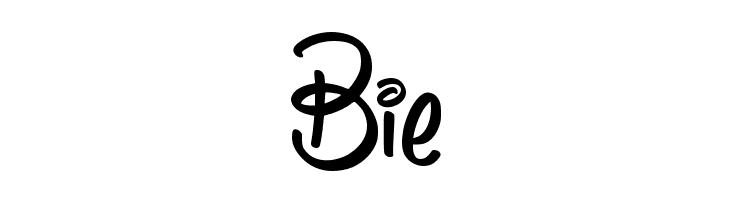
Hey Gorgeous Font
A playful, rounded font with bold strokes and a friendly vibe.
Old Gorgeous Font
A decorative and whimsical font with intricate curves and playful forms.
Gorgeous Cultural Font
Font by Graphicxell
A bold, dynamic font with a slightly condensed and modern style.
Gorgeous SemiBold Font
A modern, elegant font with elongated, narrow characters and high contrast.
Meiland Gorgeous Regular Font
A high-contrast serif font with elegant, dramatic strokes and a refined aesthetic.
Gorgeous Personal Use Font
A bold, expressive script font with flowing, cursive letterforms.
Gorgeous ExtraBold Font